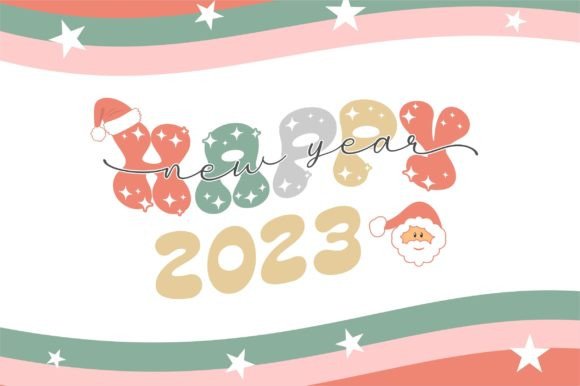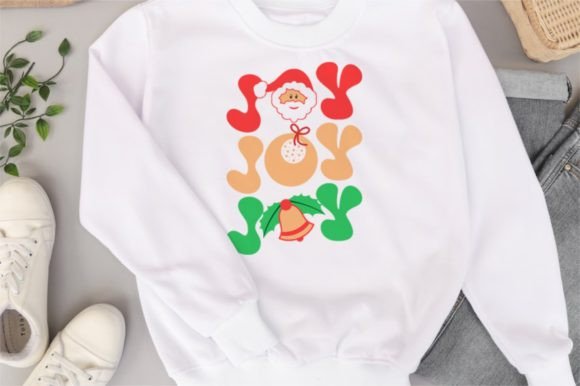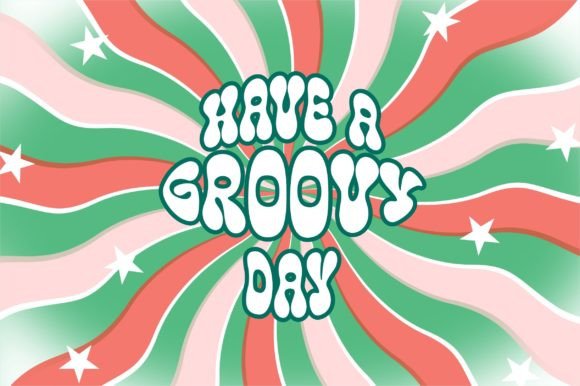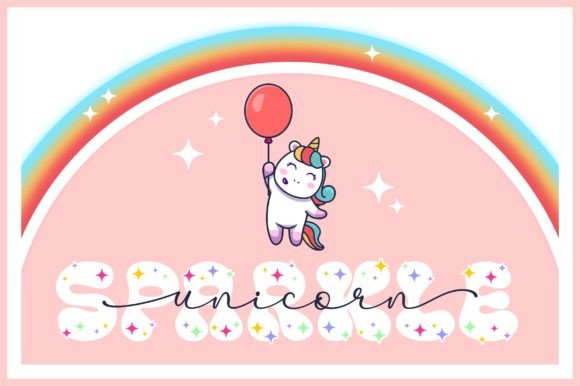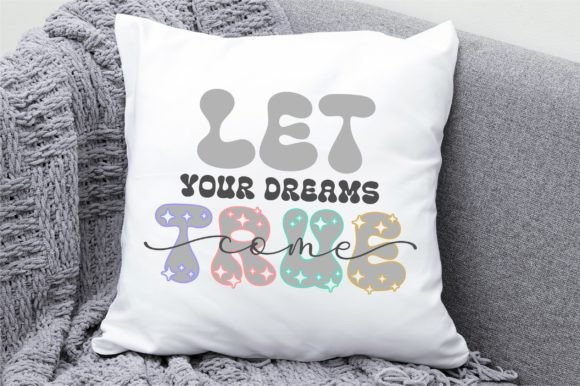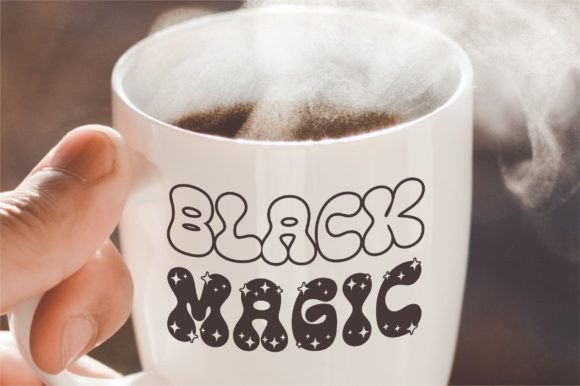
Introduction to Merry and Bright Duo Font
Merry And Bright is a sweet and adorable font duo (script and decorative).
Its cheerful and festive vibe is perfect for creating lovely Christmas designs .
Key Features of Merry and Bright Duo Font